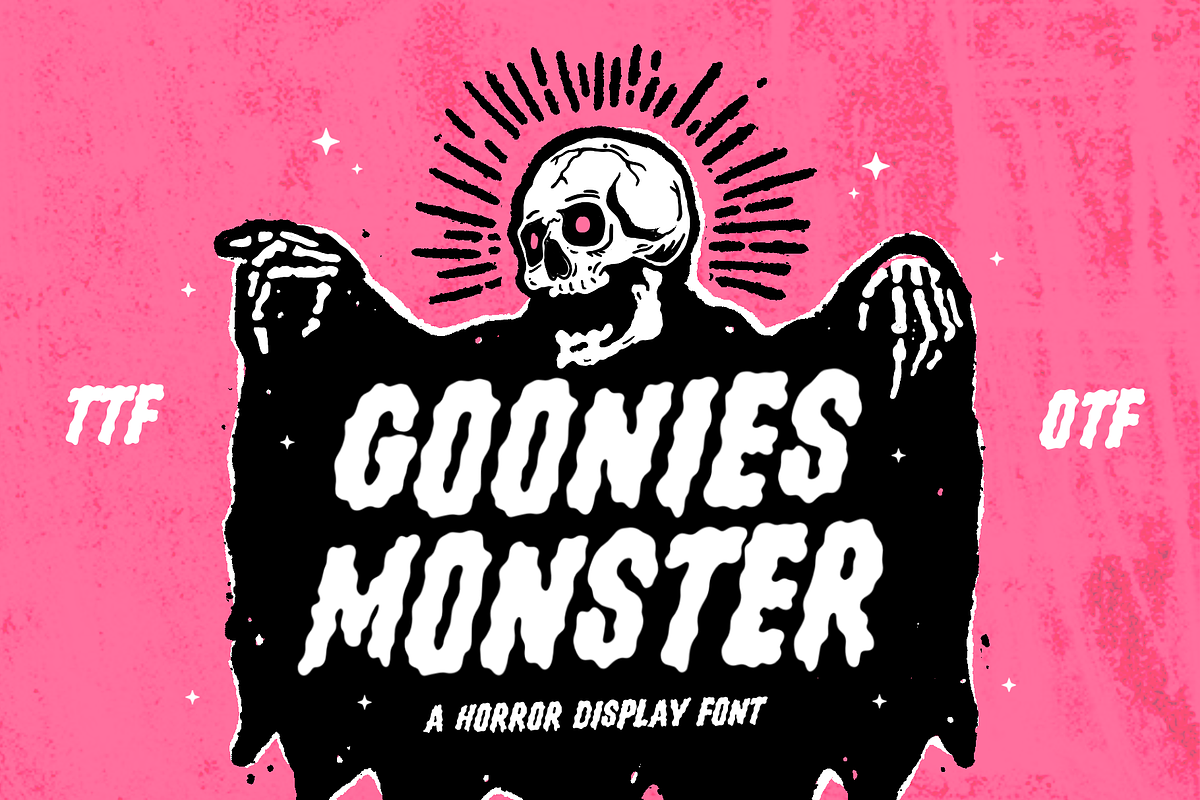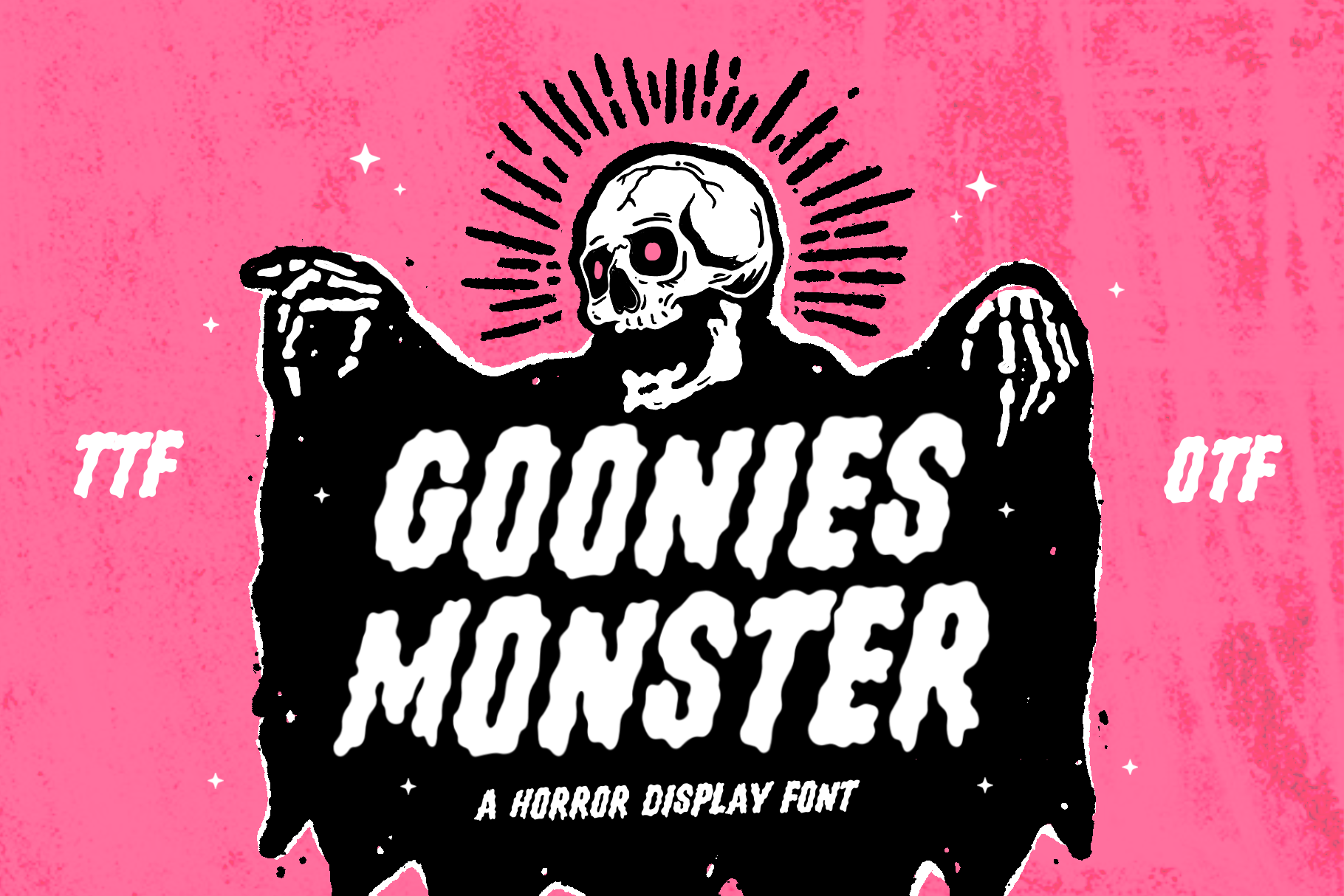
Goonies Monster Font - Scary Font
"Goonies Monster" is an eerie and captivating font product that seamlessly blends the chilling essence of a monster with the fluidity of handwriting. This typeface available in SVG format, compatible with advanced tools such as Cricut and Glowforge, and for use in Procreate. This scary font showcases a unique and haunting design, with each letter exuding a spine-chilling personality reminiscent of classic horror tales. The handwritten style adds a personal touch to the terror, as if the words themselves are whispered by an otherworldly creature. Whether used for Halloween-themed designs, horror movie posters, or any project requiring a touch of the macabre, Goonies Monster stands out as a font that brings a palpable sense of fear and intrigue to the written word.